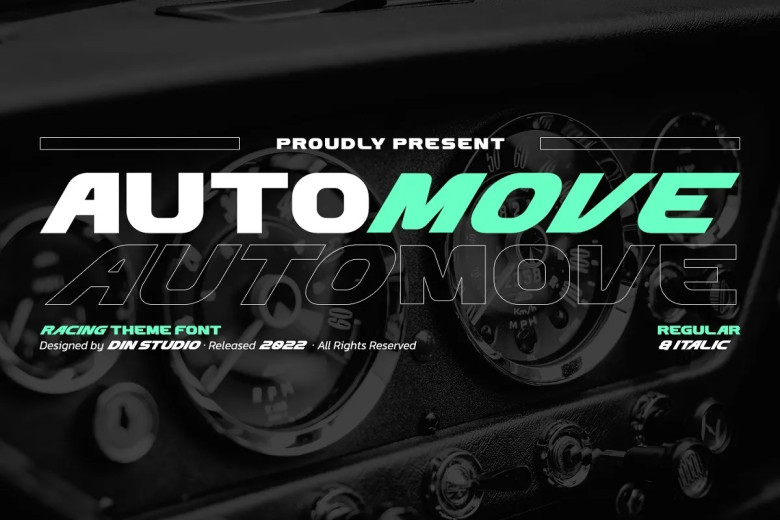
Automove Font
Automove is an extremely unique display font designed specifically for sports. It can be used in headlines, big texts, logotypes, branding and displays with its two variants, both italic and regular.
Automove is widely considered to be more durable than other typographies due to its distinctive designs and styles, therefore it is often employed for larger titles rather than text content due to its ability to read larger letters more easily than most typographies.
Furthermore, this font offers some interesting features which assist designers in improving their design products.
Automove Display Font